A New Perspective on Typeface Design
Redefining Type as Narrative, Not Just Tool
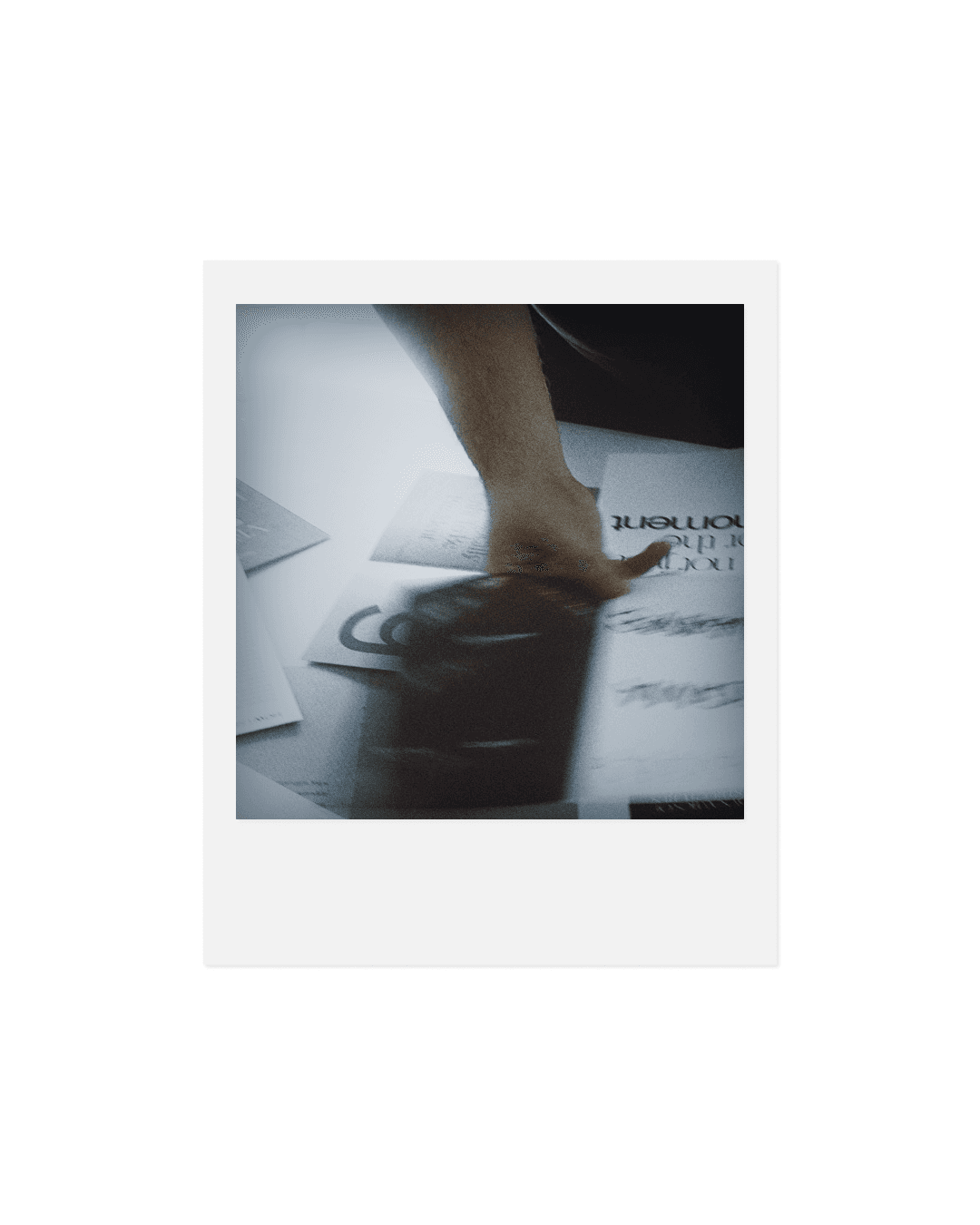
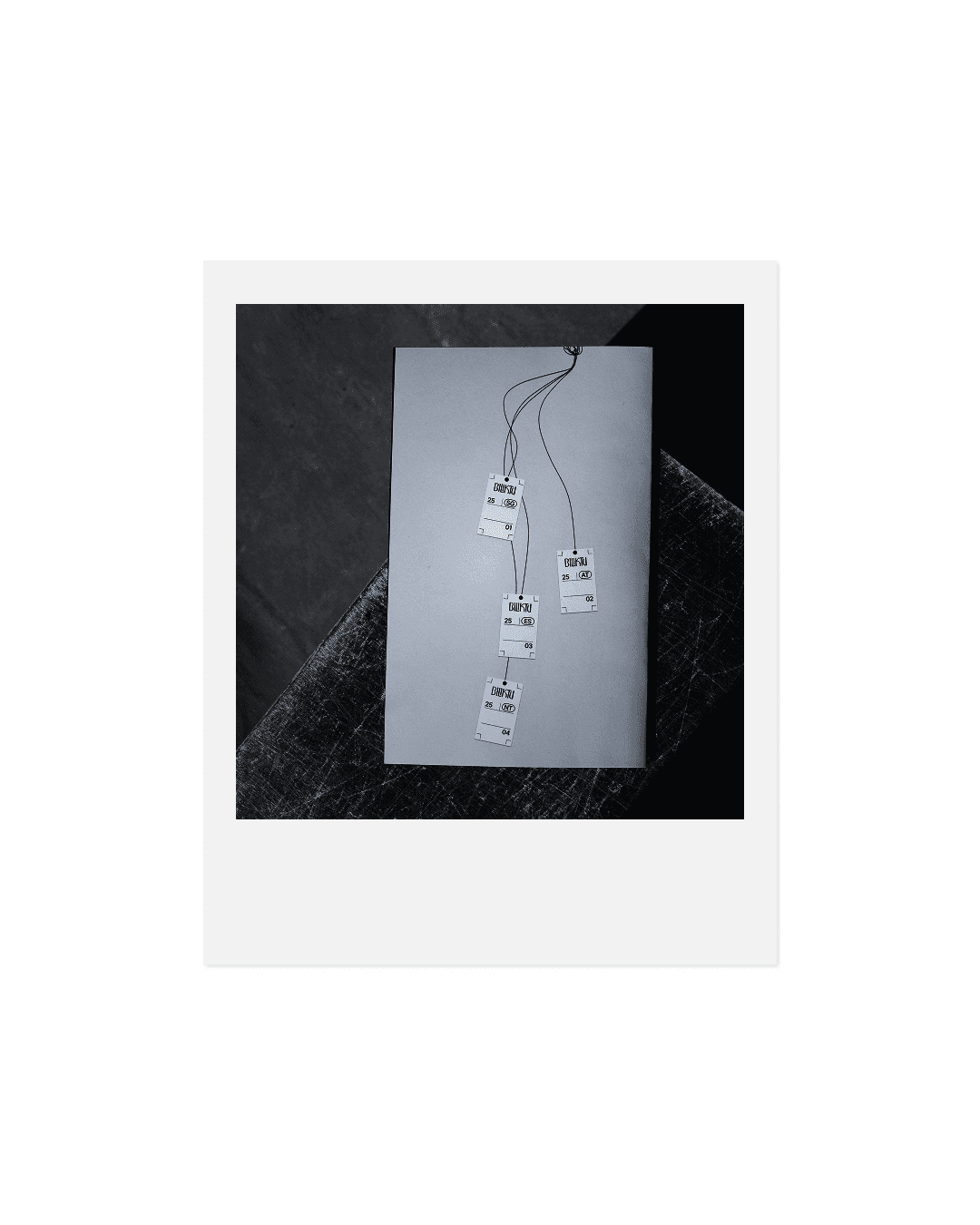
Fred Afrikyan once said we’ve moved beyond the constraints of traditional metal type design, and that we’re free to go further. That idea stayed with me. When I began designing type, I wasn’t drawn to what already existed. I was reacting to what was missing. The typefaces I needed simply weren’t there. So I created them, forms that dressed my design work rather than competing with it. At the time, it didn’t feel like a choice. It felt like survival.
What began as a personal need slowly evolved into Biliktu Foundry. But its foundation was always something deeper: the realization that I couldn’t stay within the limitations I had inherited. Drawing that first typeface was unnerving. But the alternative, staying silent, was worse.
Over the last five years, the work matured, and so did I. The foundry became more than a space for expression. It became a question: Why do we treat typefaces as neutral tools, as isolated products? Why can’t they behave more like garments in a collection, tied to narrative, to intention, to identity?
My typefaces have never existed for their own sake. They come from internal places; frustration, joy, memory. In the early days, that energy was loud, even aggressive. The Core Collection was unapologetic, erratic, sometimes brazen. But that phase was necessary. I needed to push, to provoke. Now, I’m more precise. The voice is quieter, but more focused. Still expressive, but framed, structured, intentional.
That shift gave rise to Vestige, my first true collection. It was a search for a new rhythm, one where emotion and restraint could live together. I wanted to hold onto the rawness of my early work, but allow it space to breathe.
As I developed the collection, I imagined the worlds these typefaces belonged to. I began building soundscapes. I looked to the way garments speak to each other in the work of Jan-Jan Van Essche, Sarah-Linh Tran, Christophe Lemaire. Their language of softness and control, of quiet construction, stayed with me.
And then, Margiela. I had known the name, of course. But I hadn’t felt the work until I read the interviews, the texts, the subtext. His vision, the poetic anonymity, the intentional deconstruction, the refusal to explain, gave me a kind of permission. To subtract. To unpolish. To leave something unsaid.
That spirit is present in Vestige.
Typefaces, for me, are like garments. They dress the design. They support. They shape tone. They never shout over the form they live within. My earlier work took up a lot of space, deliberately. But just as my wardrobe has changed, so has my design philosophy. The work must now carry intention, not just impact.
I’ve stepped away from the model of releasing individual typefaces as isolated products. That approach no longer reflects how I think, feel, or work. Instead, I’ve adopted a collection-based structure, not as a reference to fashion, but as a design philosophy. Collections allow space for rhythm, narrative, and evolution. They reflect a system of thought, not a trend. Each one is a complete expression, a world with its own internal coherence. Whether it includes one typeface or several is irrelevant. What matters is the clarity of the voice, and the intention behind it.
These collections will always be multi-sensory. Sound, video, photography, they are not accessories. They are part of the narrative architecture. Each element is crafted with the same care as the type itself. To support this new structure, I’ve created a Glossary to clarify the language I use and the frameworks I’m introducing. You’re welcome to explore it.